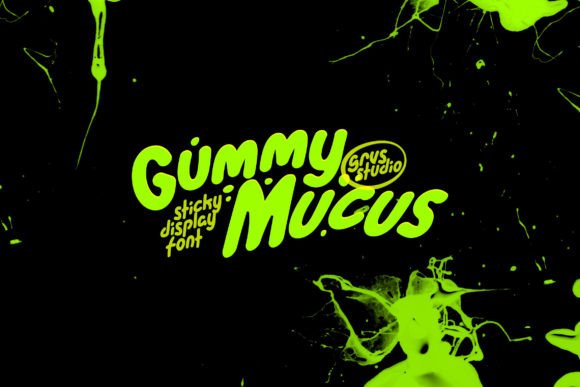
Introducing GRVS Gummy Mucus, the playful and vibrant display font that will infuse your designs with a touch of whimsy and charm. Crafted with meticulous attention to detail by the skilled hands of febryan.satria1, this script font family embodies the spirit of childhood wonder and imagination.
Gummy Mucus is not just another font; it's an invitation to embark on a whimsical adventure through the realm of words. Its playful curves and cheerful letterforms dance across the page, capturing the essence of youthful exuberance and carefree spirit.
Designed with the utmost versatility in mind, Gummy Mucus effortlessly adapts to a myriad of creative projects. Whether you're crafting a playful logo for your children's brand, designing an enchanting invitation card for a birthday party, or creating a vibrant poster for a school event, Gummy Mucus is your perfect companion.
Its playful nature shines through in every character, adding a touch of lightheartedness and fun to your designs. Unleash your creativity and let Gummy Mucus transform your words into captivating works of art that spark joy and capture the hearts of young and old alike.
**Embrace the Magic of Gummy Mucus**
- Ignite your imagination and let your creativity soar with this enchanting script font.
- Journey into a world of playful expression where words come alive with personality.
- Experience the sheer delight of creating designs that exude charm and evoke smiles.
**Make Your Designs Irresistible**
- Craft a unique and memorable logo that perfectly reflects the playful spirit of your brand.
- Design eye-catching posters and flyers that demand attention and leave a lasting impression.
- Create delightful social media graphics that engage your audience and captivate their hearts.
**Unleash Your Creative Potential**
- Experiment with different color palettes and backgrounds to create visually stunning designs.
- Combine Gummy Mucus with other fonts to add depth and dimension to your creations.
- Explore endless possibilities and let your imagination run wild.
**Experience the Gummy Mucus Difference**
- Dive into a myriad of creative projects, knowing that Gummy Mucus will elevate your designs to new heights.